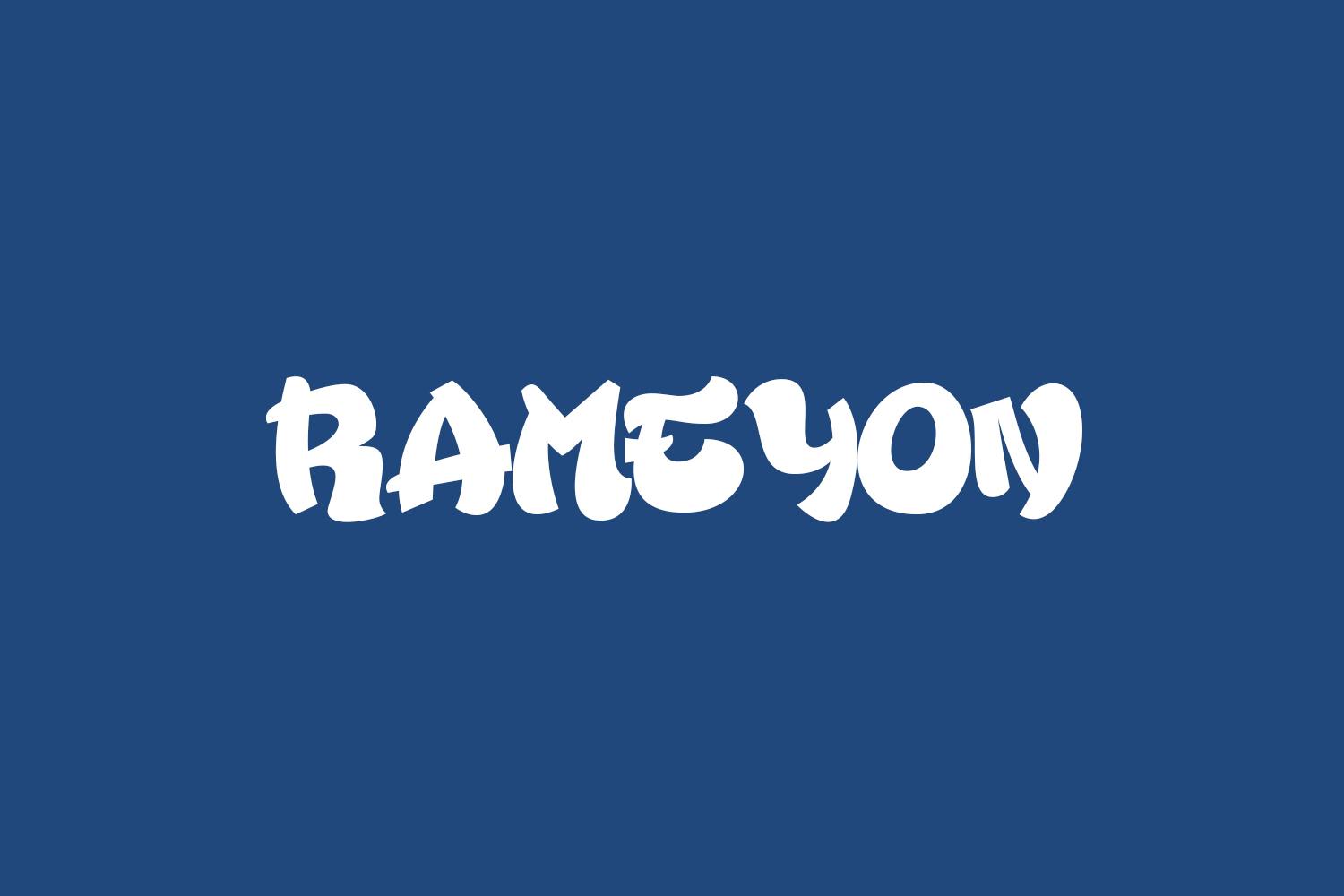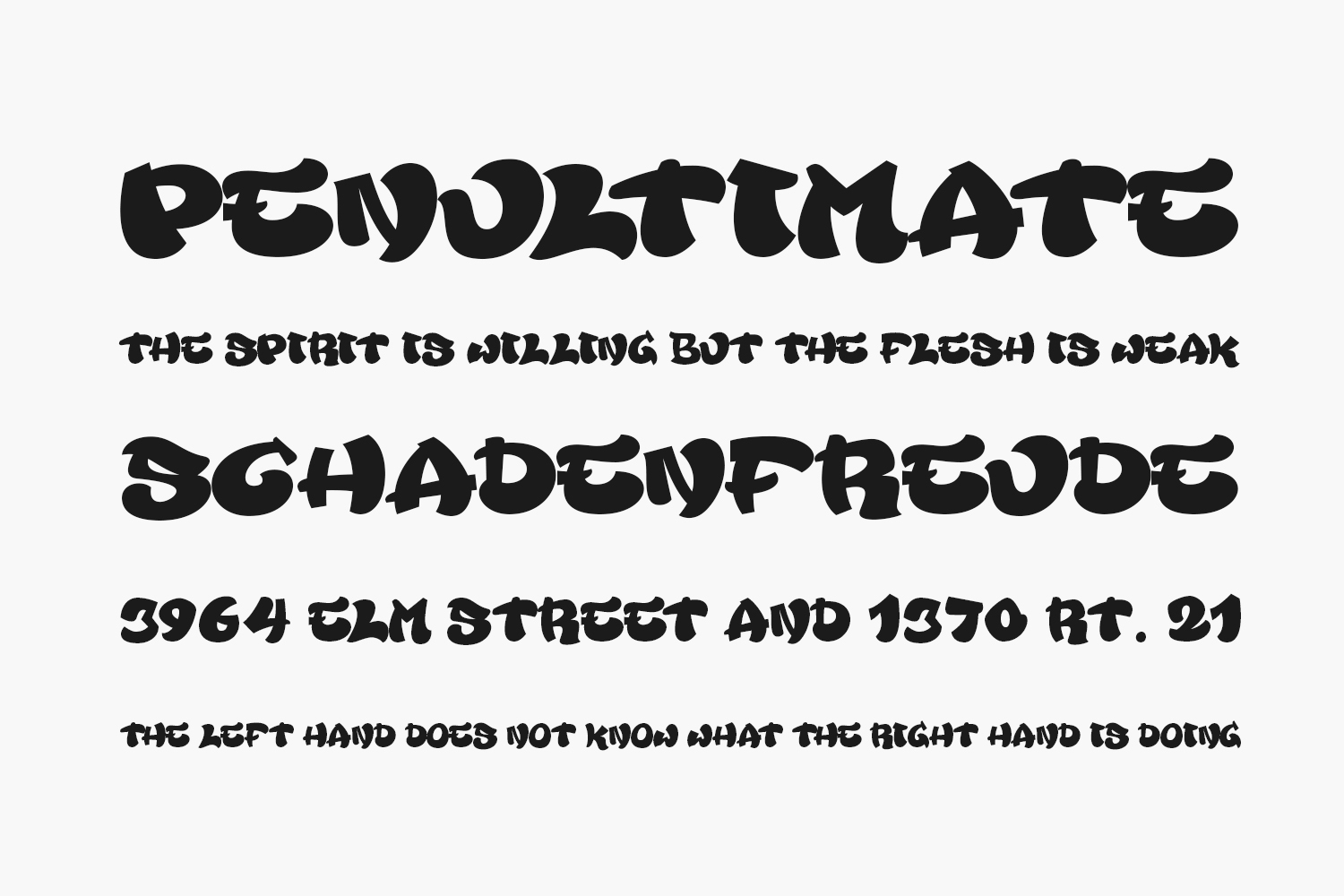
Elevate your urban and casual creations with Rameyon Free Font, a stylish graffiti-inspired display font that brings a cool edge to your designs. Embrace its artistic flair to enhance a variety of projects, from t-shirts and sportswear to logos, advertisements, and beyond. This versatile font is a valuable addition to your library, promising to infuse a unique and dynamic touch into any creation. Unleash the potential of Rameyon for a standout visual impact across diverse design ventures. Download the font for free if you need it for personal use or purchase the full version for commercial use.